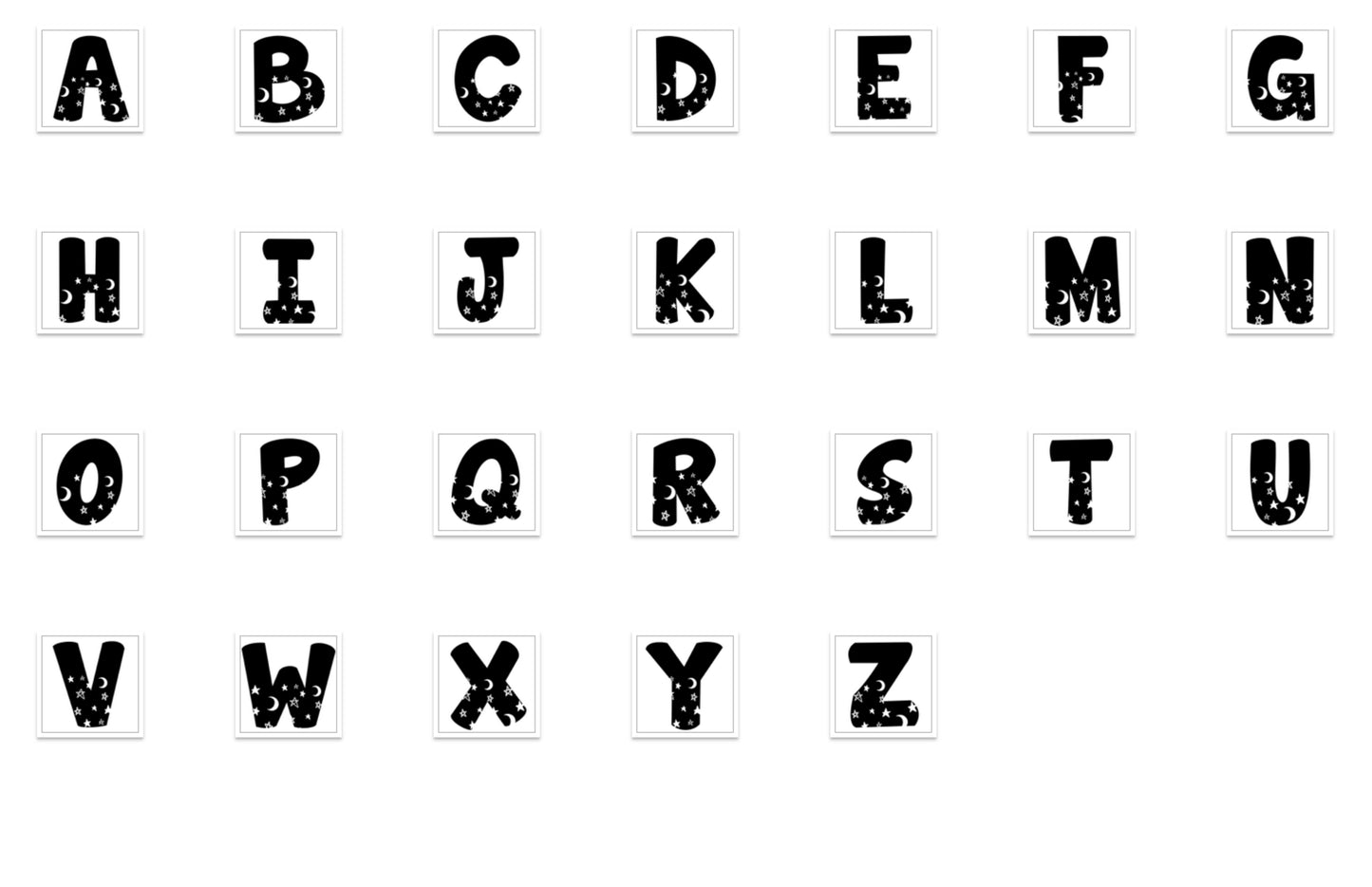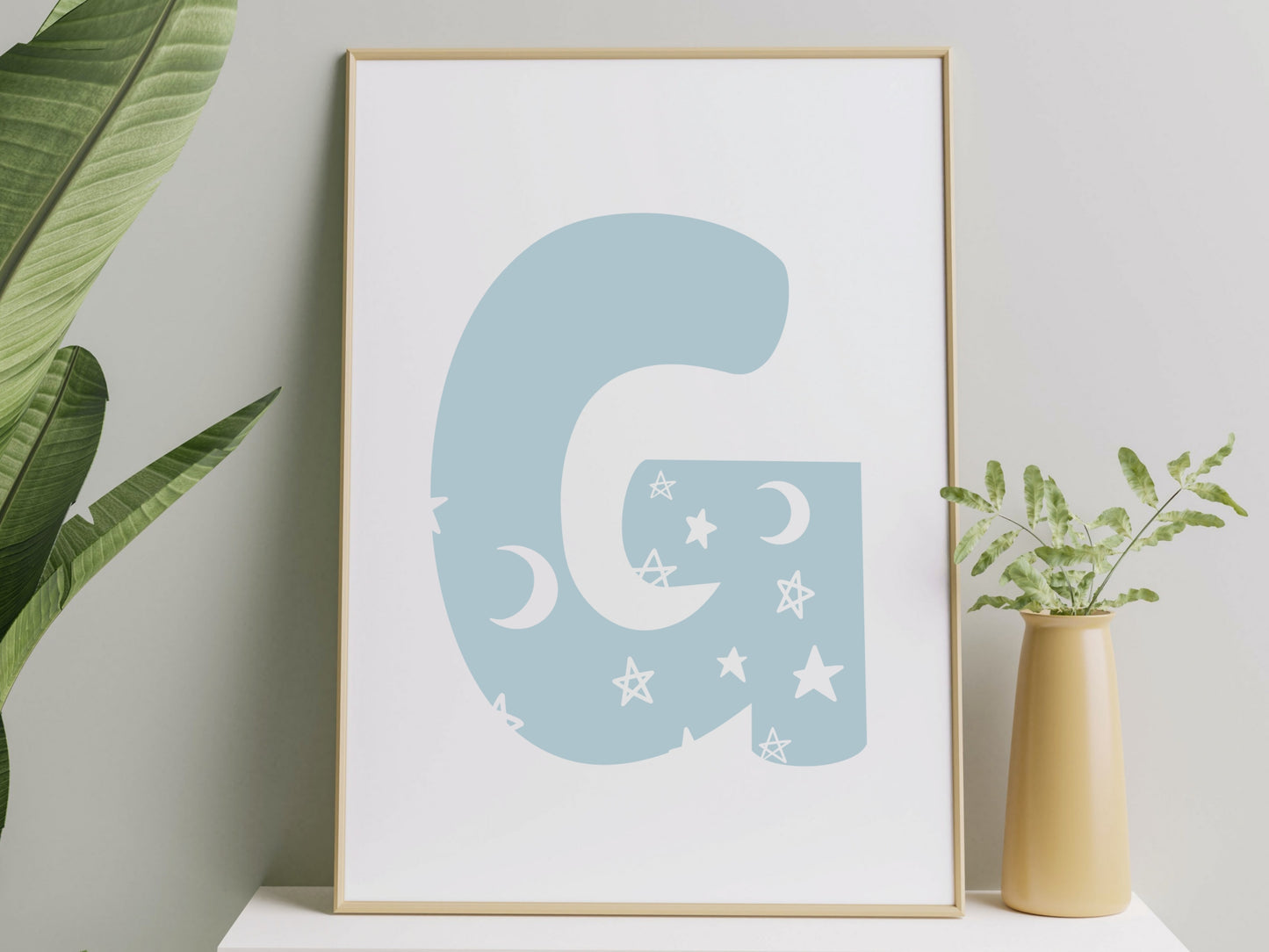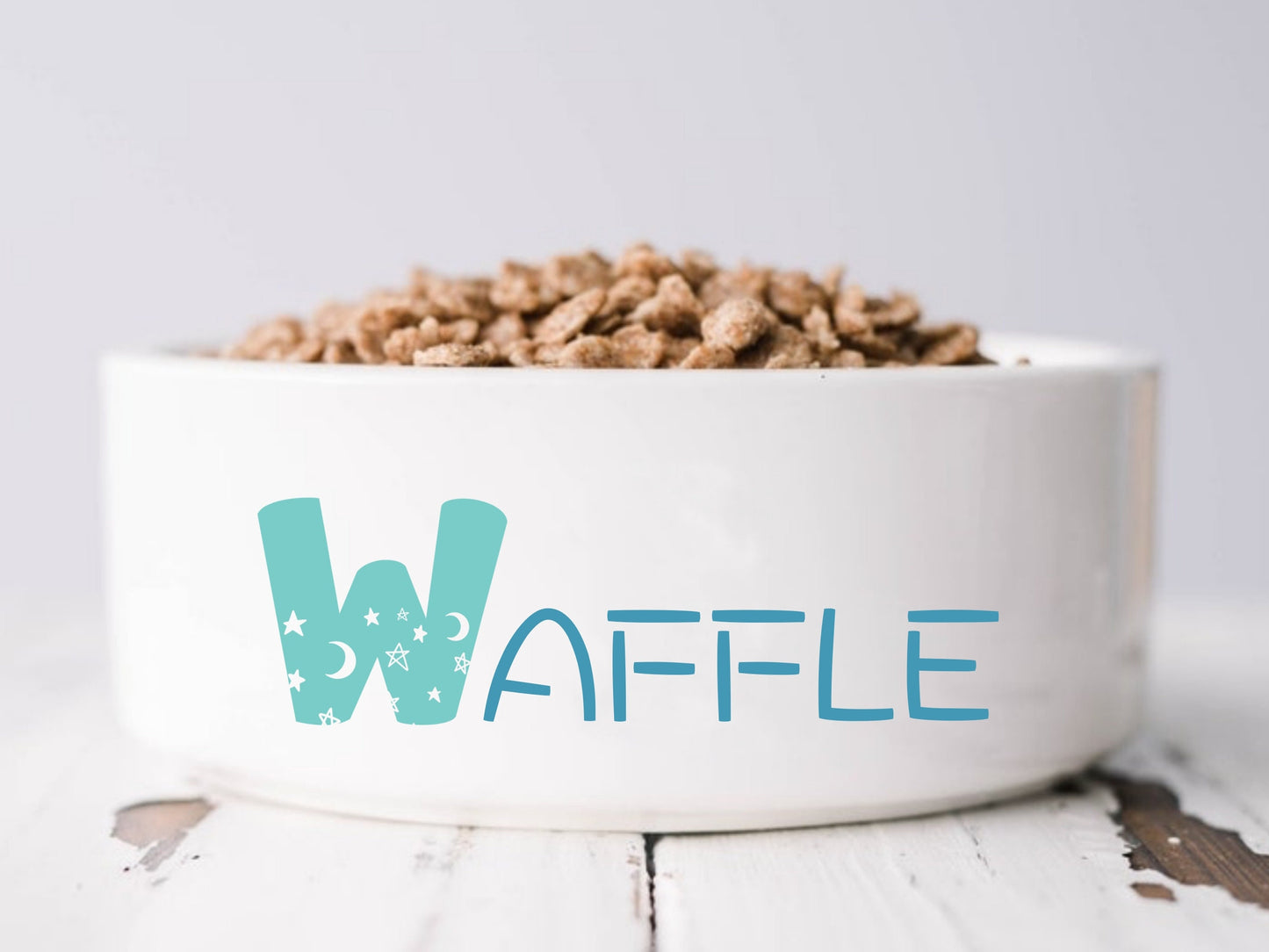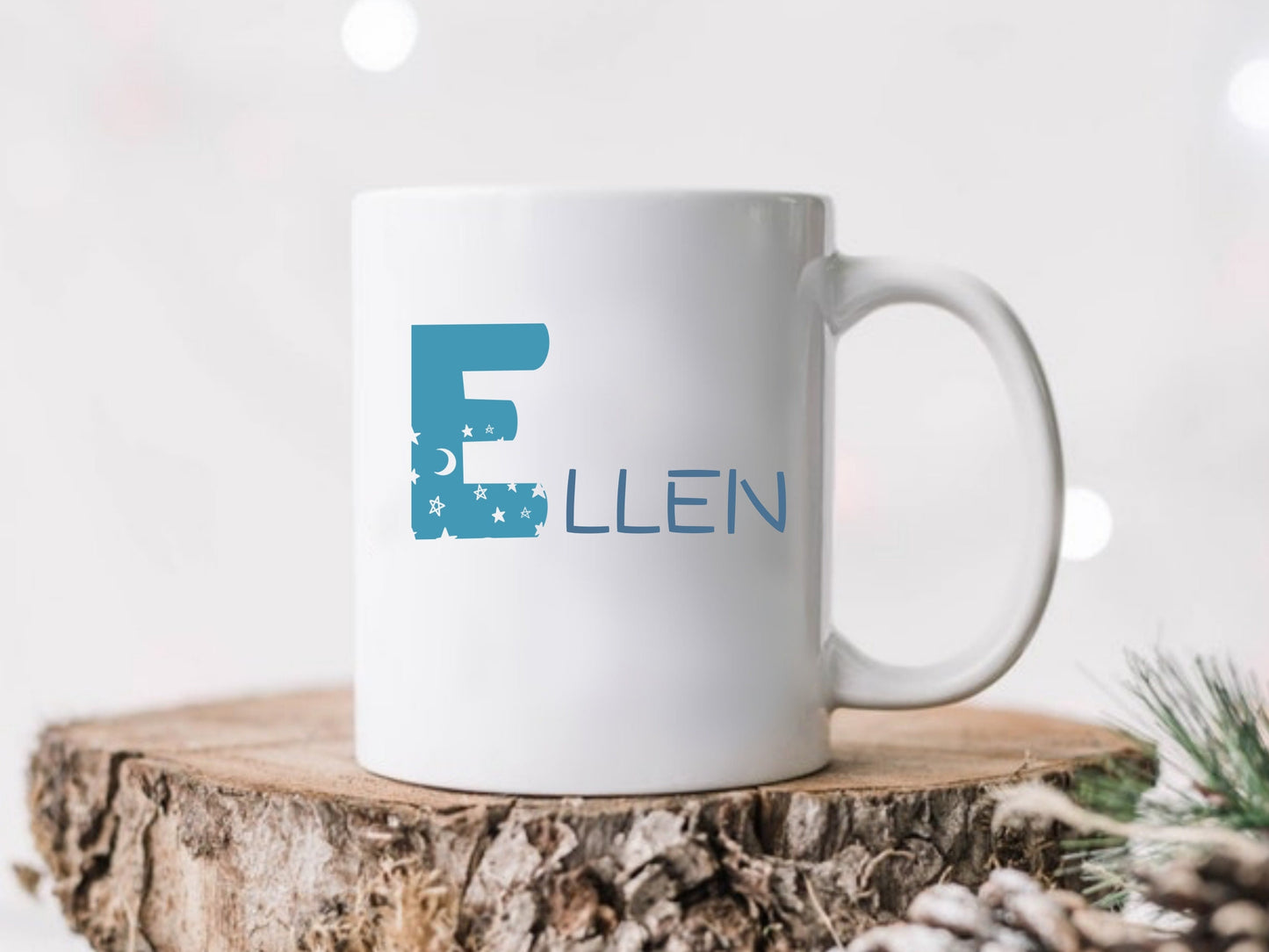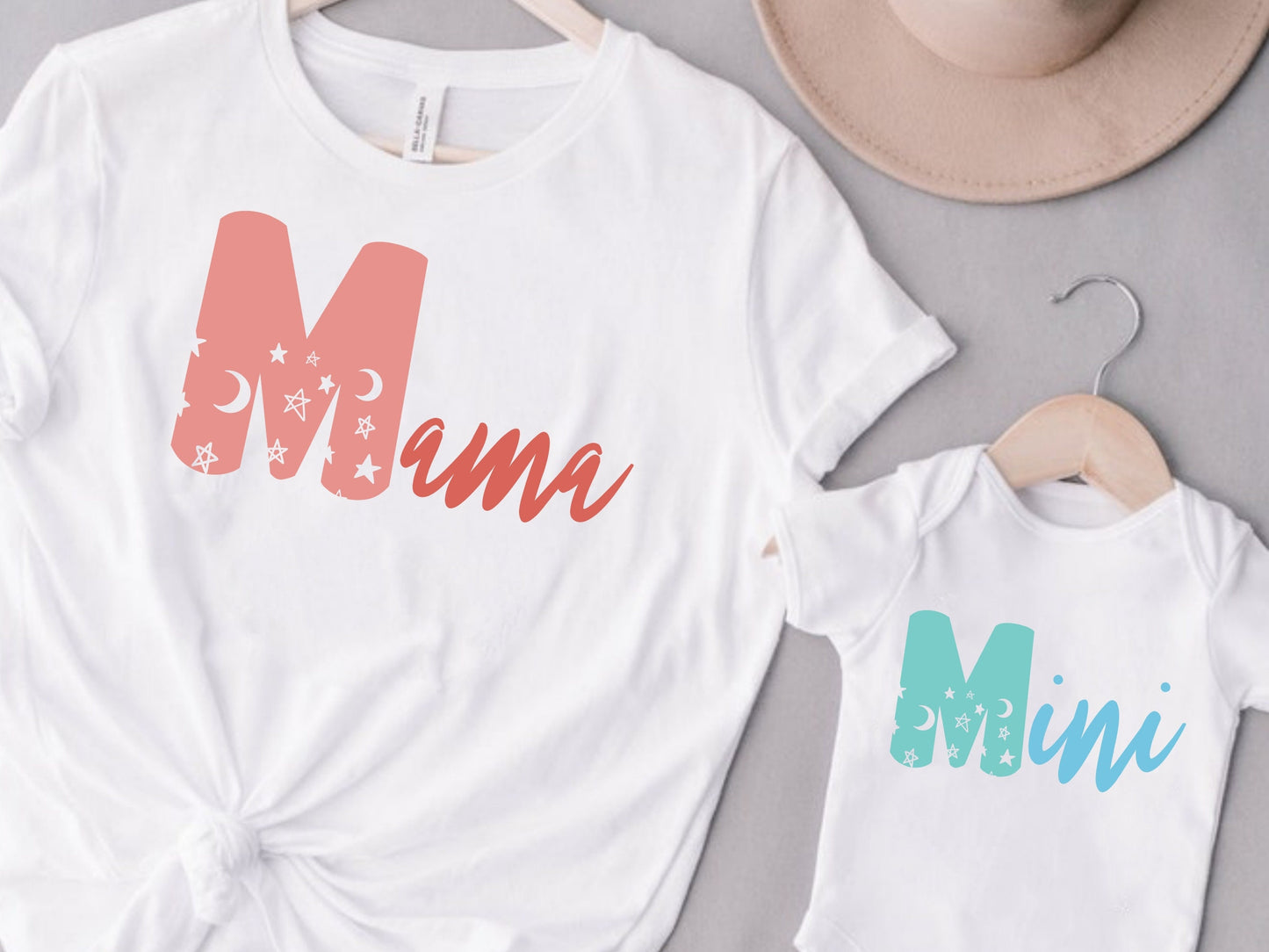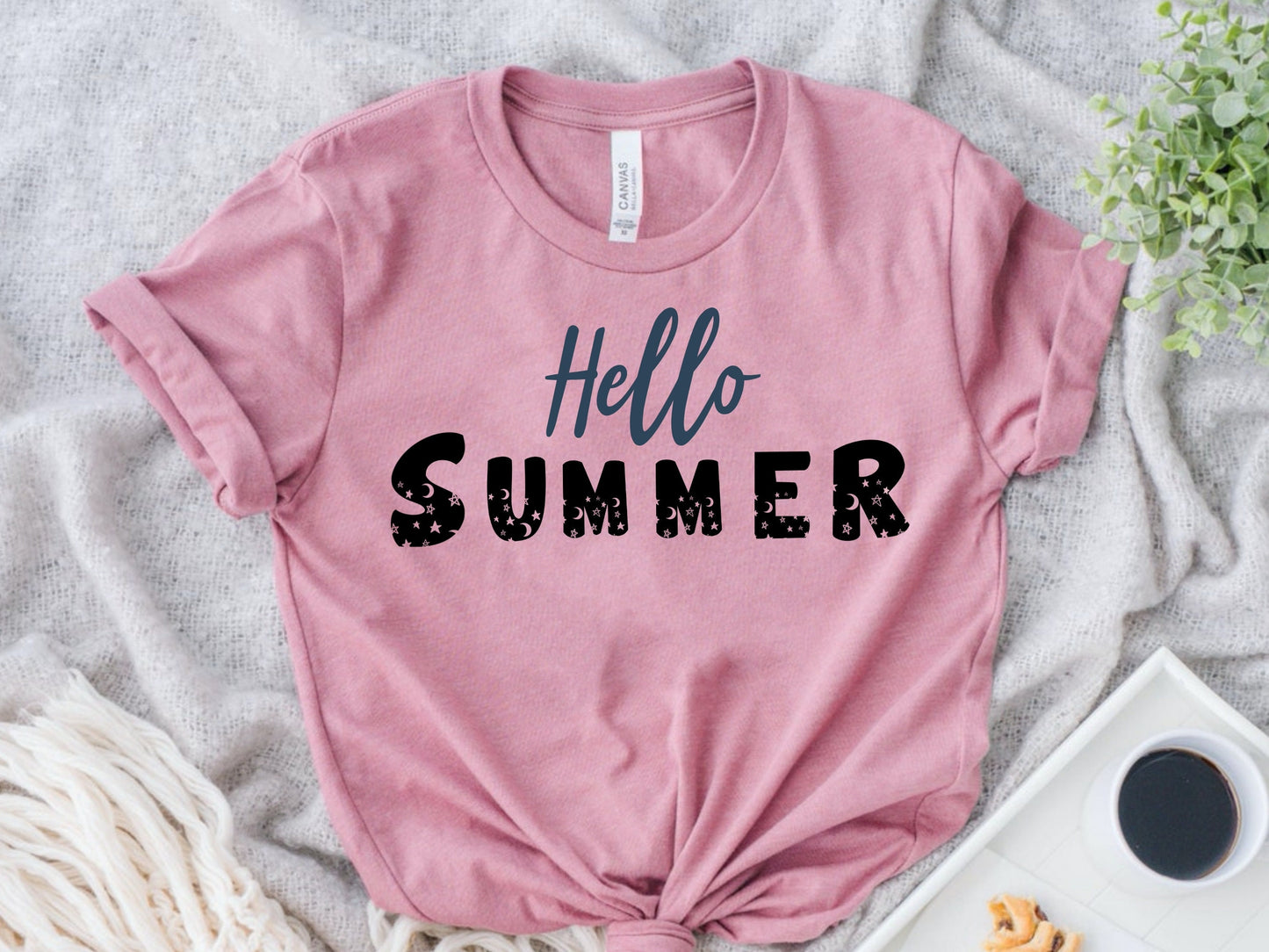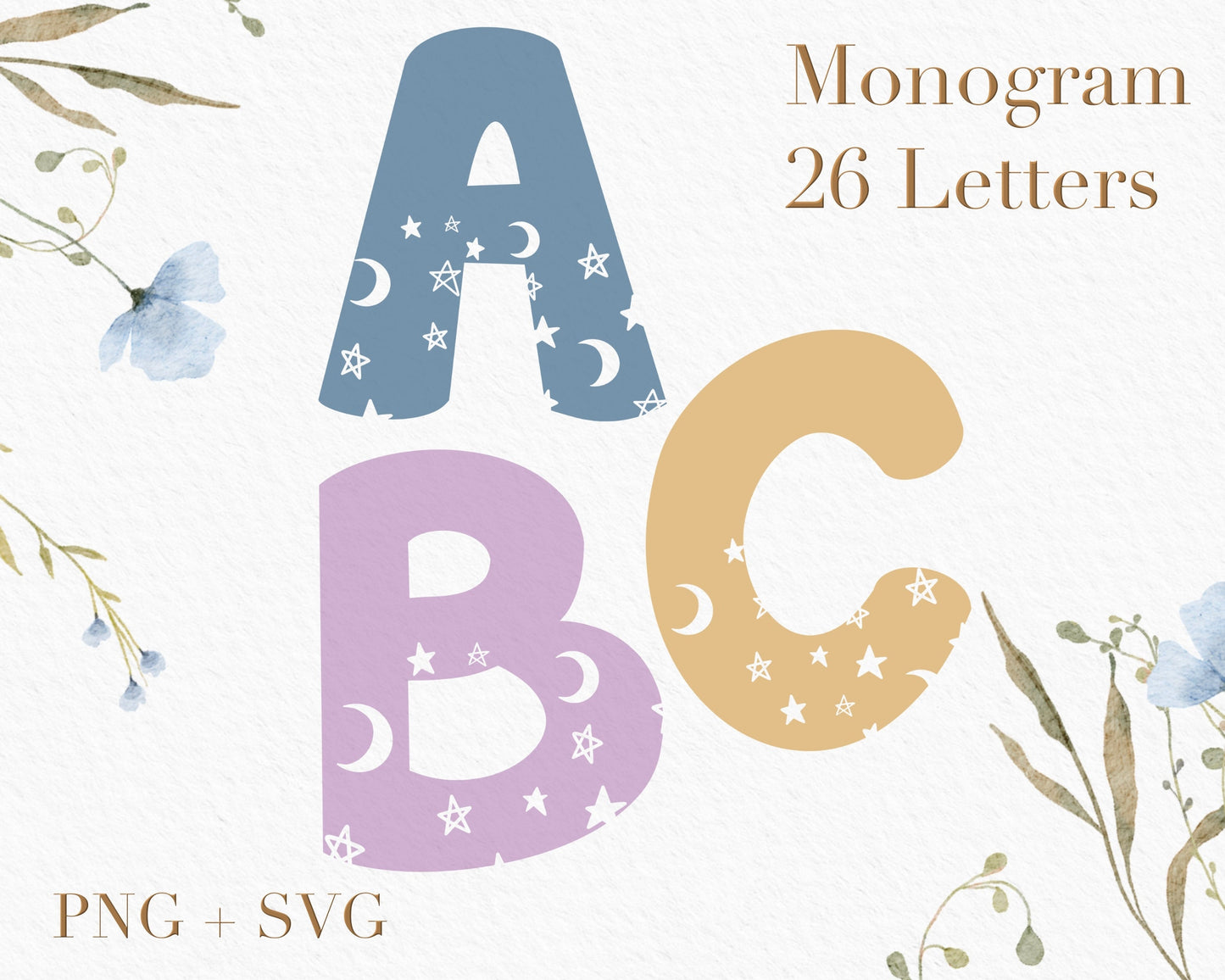
Star & Moon Monogram Alphabet SVG PNG
26 individual star & moon letters/ monogram/ alphabets for instant download, includes SVG and PNG file formats (high resolution outline art and silhouette, 300 dpi). Easy to download and edit for your projects, such as banners, tapestry, Christmas ornament, keepsake, wedding decor & invitation, t-shirts, mugs, bags, wall decor, cards and POD products...etc. Those files are compatible with Canva, Cricut, Illustrator, photoshop and other software, cut files can be used for vinyl, engrave and prints, turning your designs into unique creations for personal and commercial use.